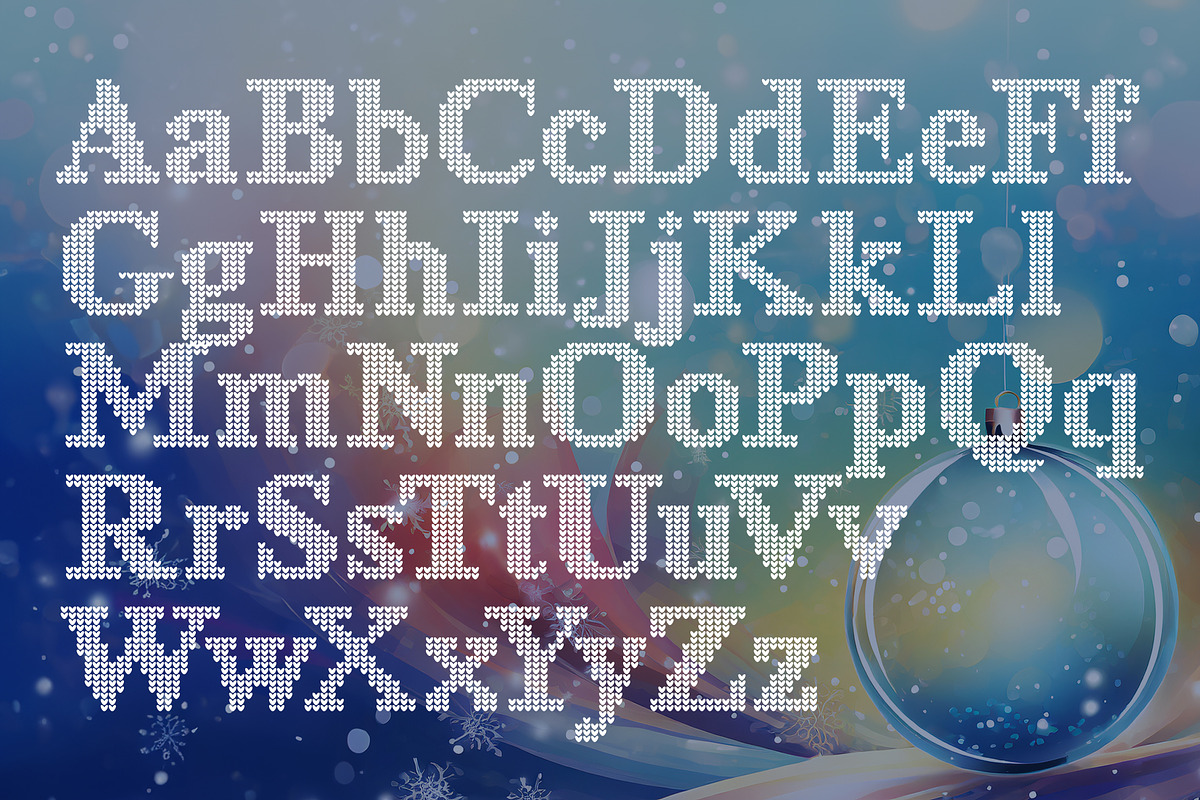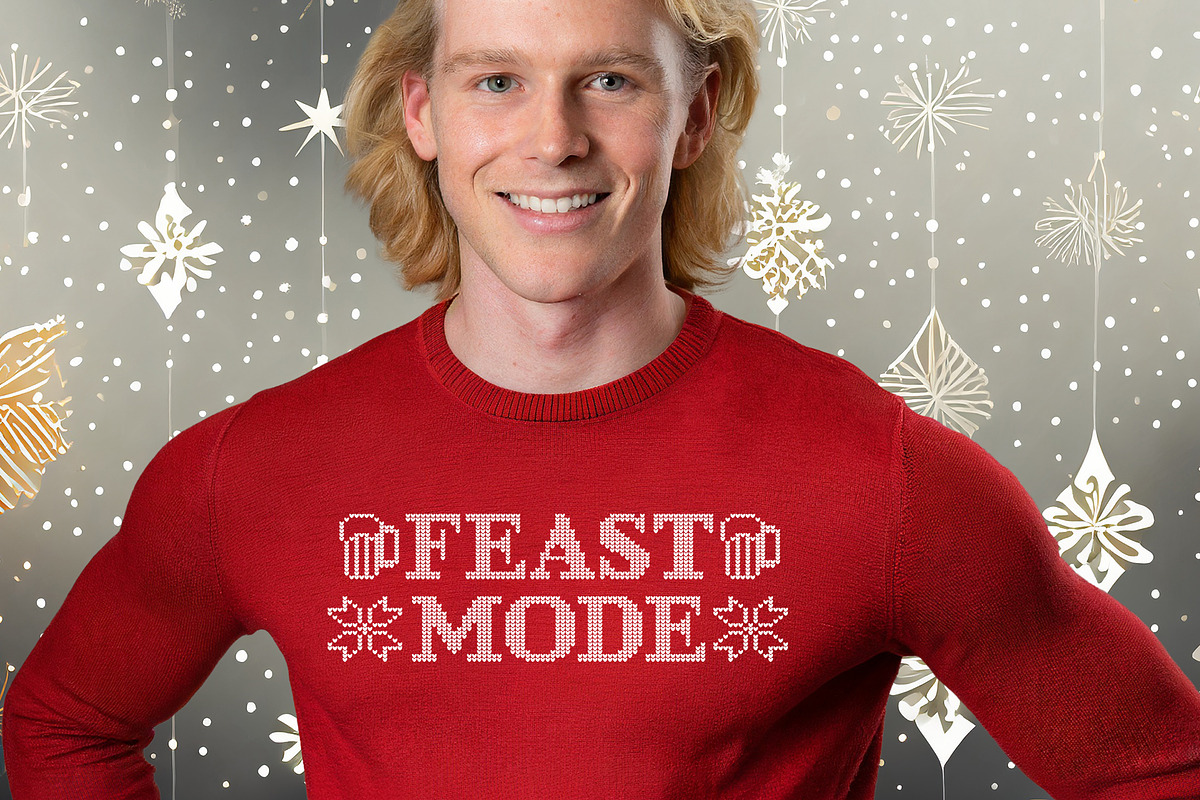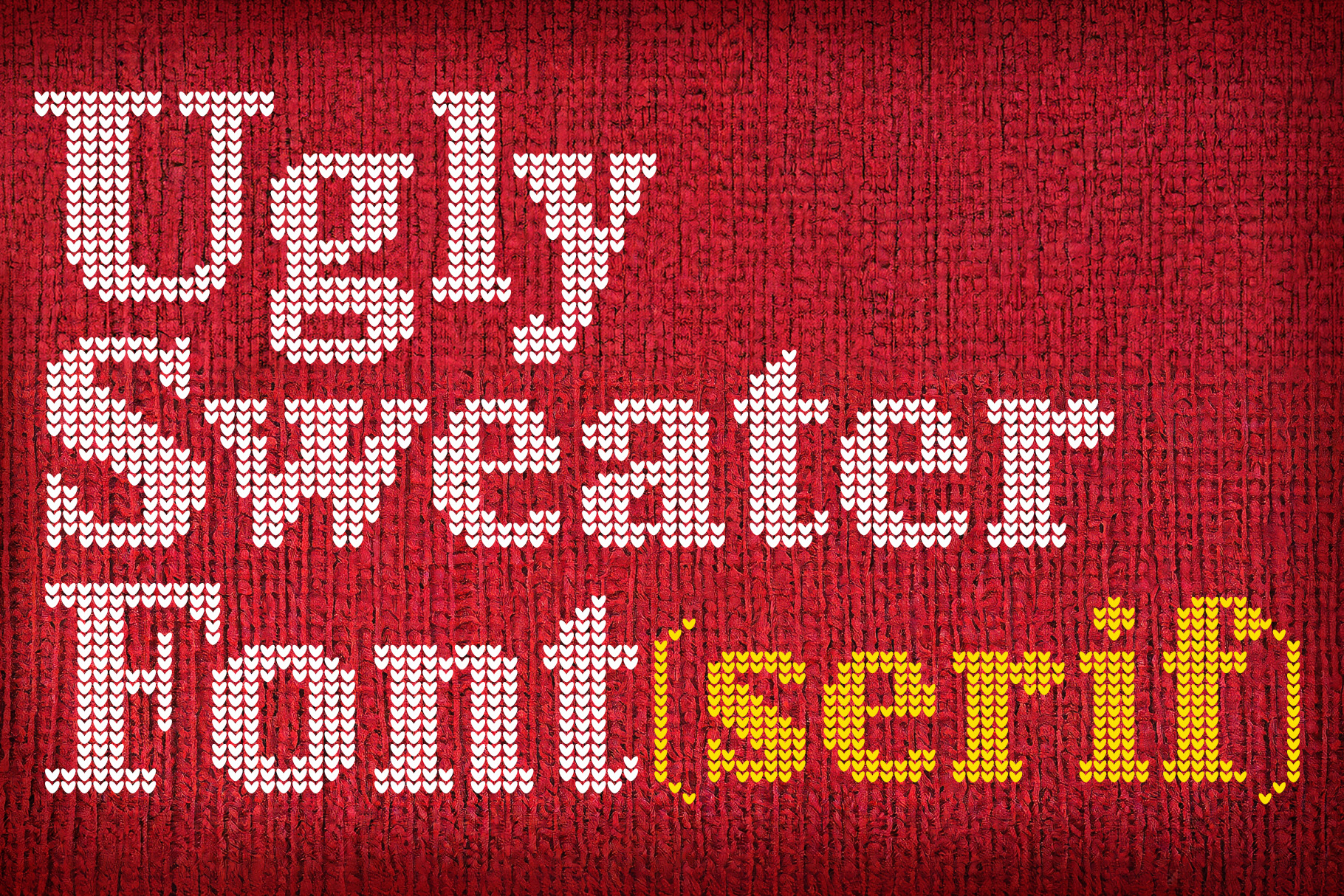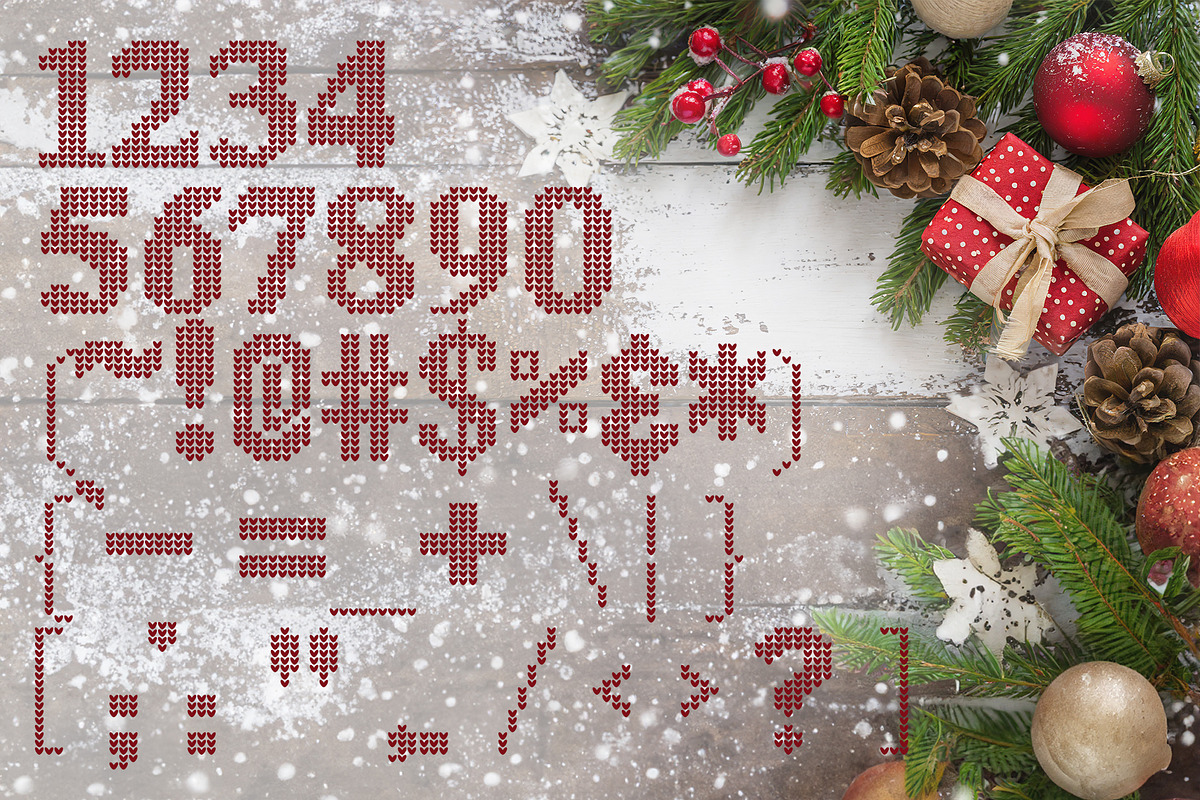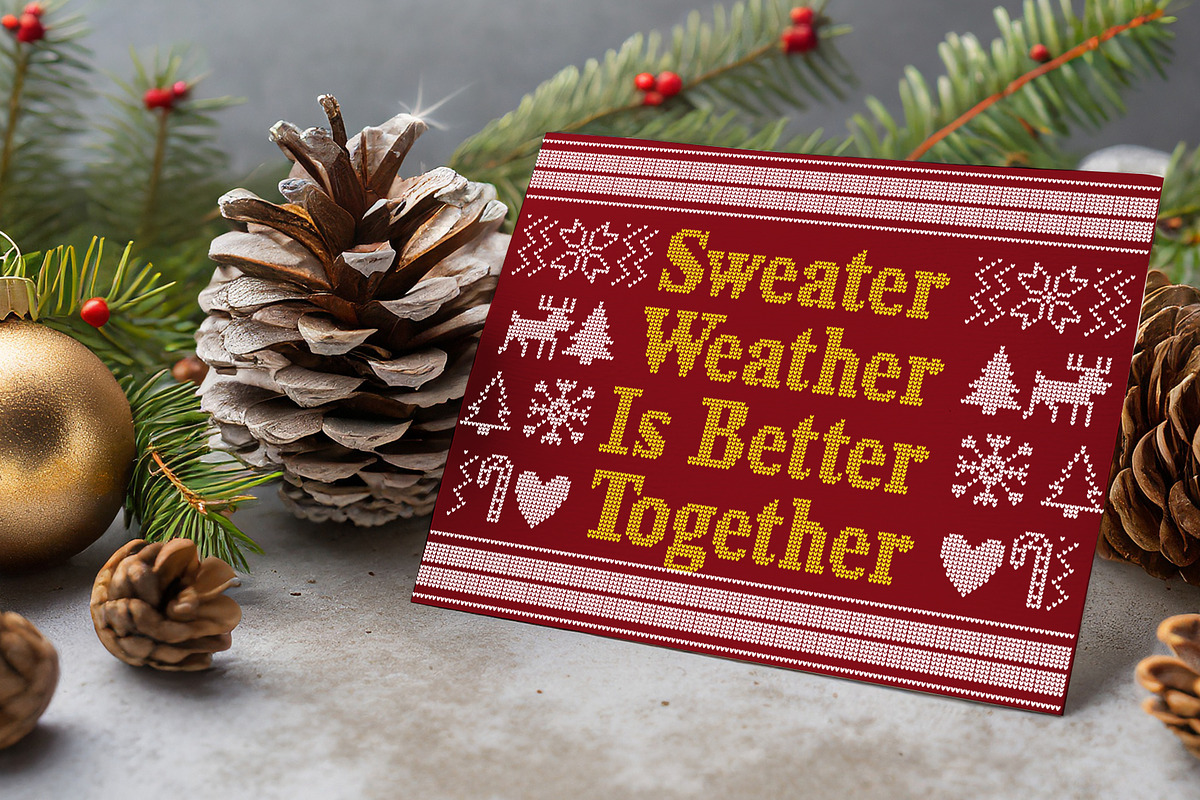
Ugly Sweater Serif Font
This Ugly Sweater font is the serif version of our first Ugly Sweater font (sans serif). This font includes the symbols set too.
- Holiday Greeting Cards: Add a touch of whimsy to your Christmas cards.
- Event Invitations: Ideal for invitations to holiday parties and winter gatherings.
- Marketing Materials: Stand out in seasonal promotions, sales banners, and advertising campaigns.
- Product Packaging: Give your holiday product lines a unique branding touch.
- Social Media Graphics: Enhance your festive posts and digital content.
- Apparel Design: Perfect for designing holiday-themed t-shirts, sweaters, and more.
- Decorative Posters: Create eye-catching posters for events or holiday home decor.-